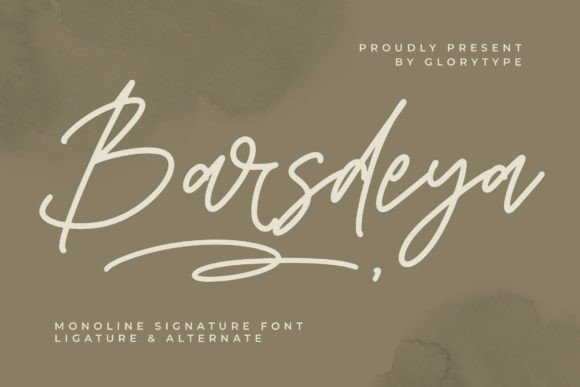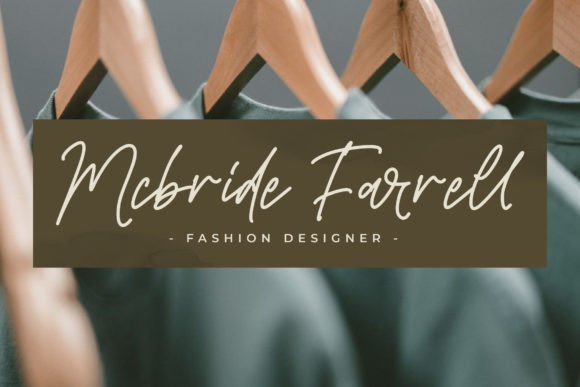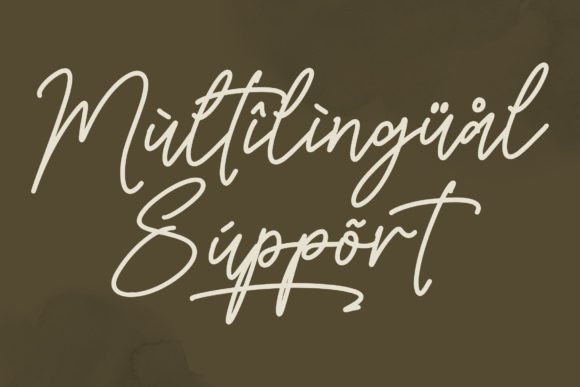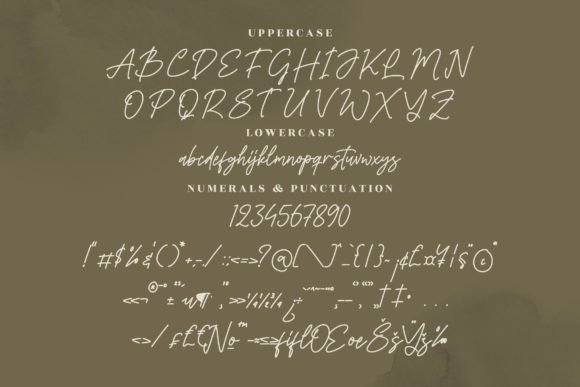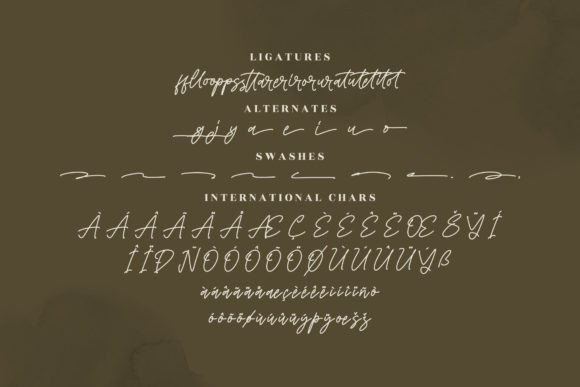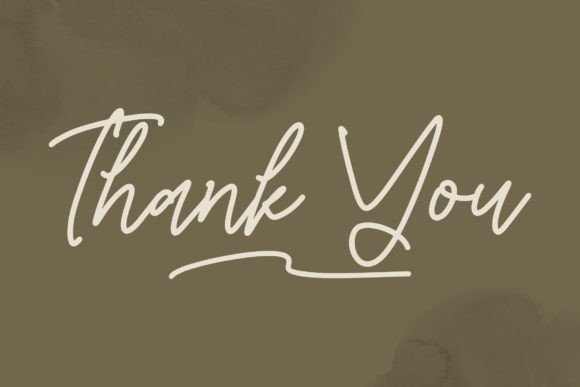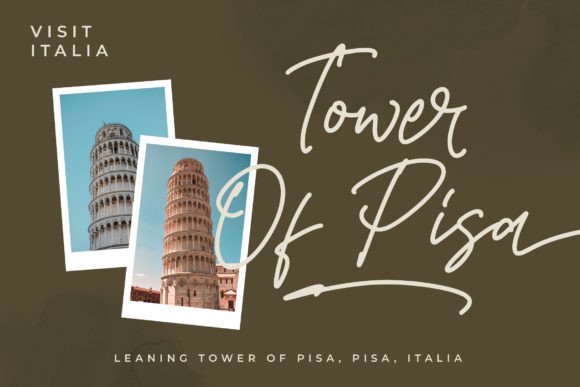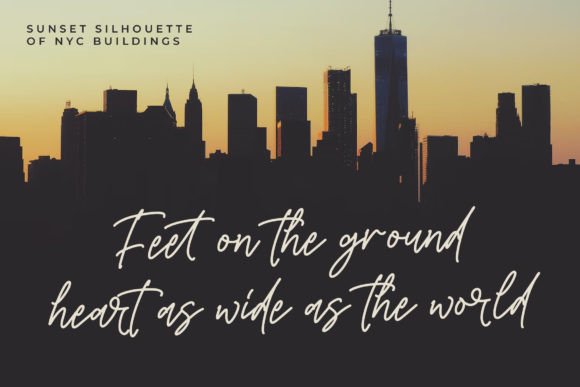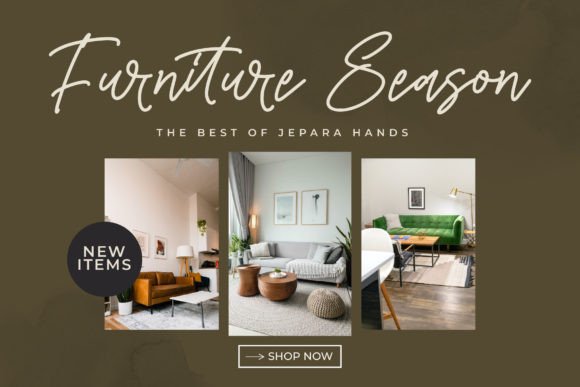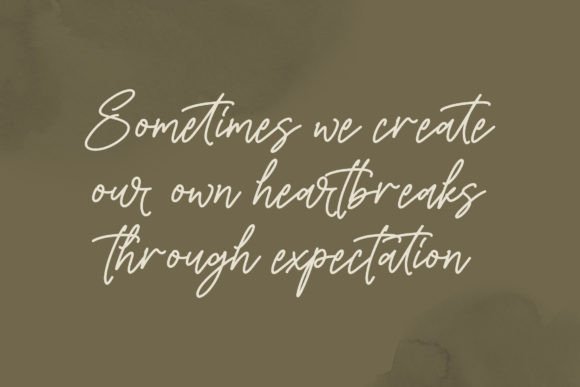
Barsdeya Font
About Barsdeya Font
“Barsdeya” is a font that embodies delicacy, elegance, and a flowing script style. With its beautiful and well-balanced characters, this font is a versatile addition to your design toolbox, suitable for a wide range of creative projects. When you incorporate “Barsdeya” into your designs, you’ll witness how it breathes life into your most creative ideas.
The charm of “Barsdeya” lies in its ability to infuse a sense of sophistication and grace into your work. Its delicate and flowing handwritten style adds an air of authenticity and creativity to your designs, making them come alive with a touch of elegance.
Whether you’re working on branding, invitations, posters, or any other creative endeavor, “Barsdeya” effortlessly enhances the visual appeal of your projects. Its versatility allows it to adapt to various design themes and styles, ensuring that your work stands out with a sense of beauty and creativity.
As you embrace “Barsdeya” in your creative process, you’ll discover its remarkable ability to elevate your work, making it visually captivating and memorable. This font becomes a trusted companion in your design journey, enabling you to craft designs that captivate your audience and create a lasting impact.
In summary, “Barsdeya” is a delicate, elegant, and flowing handwritten font that adds a touch of sophistication to a wide variety of design projects. Its well-balanced characters make it a versatile choice for designers seeking to infuse their work with an elegant script style. Let “Barsdeya” be your creative choice and watch how it brings your ideas to life with grace and creativity, ensuring they resonate with your audience.